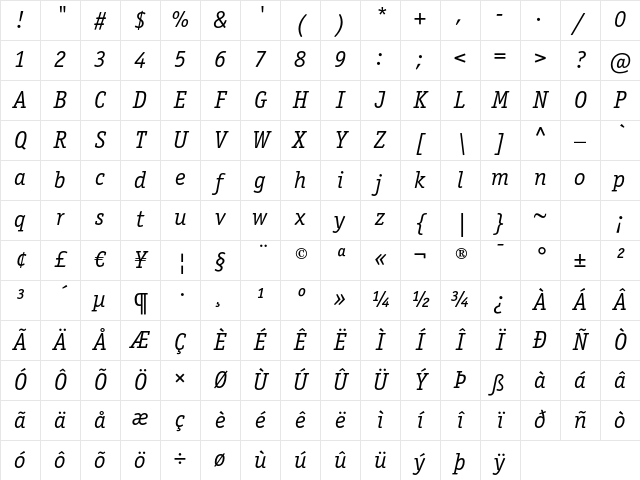
Complete ITC Officina Serif LT Book Italic glyph index. Displaying only characters natively supported by ITC Officina Serif LT Book Italic font.
ITC Officina Serif LT carries the refined structure of traditional serif typography, with bracketed terminals and considered proportions that communicate credibility and craft. The slanted form adds forward momentum and visual energy. Its slender proportions lend an understated elegance to any composition.